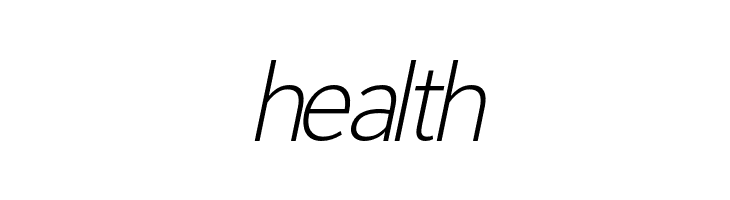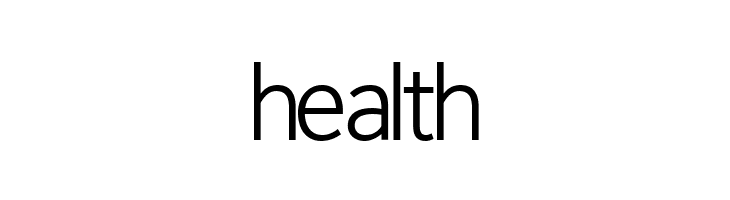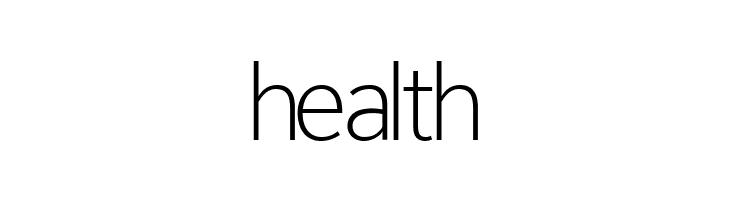
Homizio Nova Font
A modern, italicized font with smooth curves and consistent stroke width.
A sleek, modern, light italic sans-serif font with elegant slant and high readability.
A modern, light sans-serif font with clean lines and excellent readability.